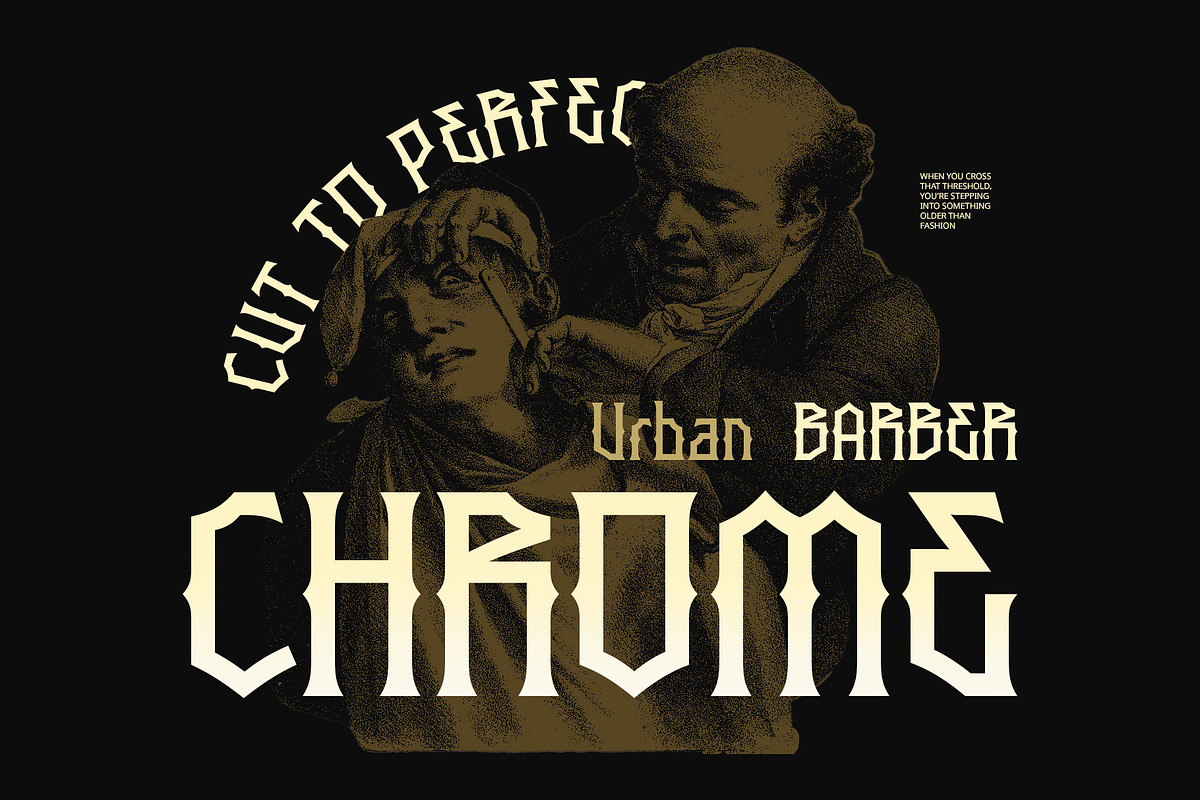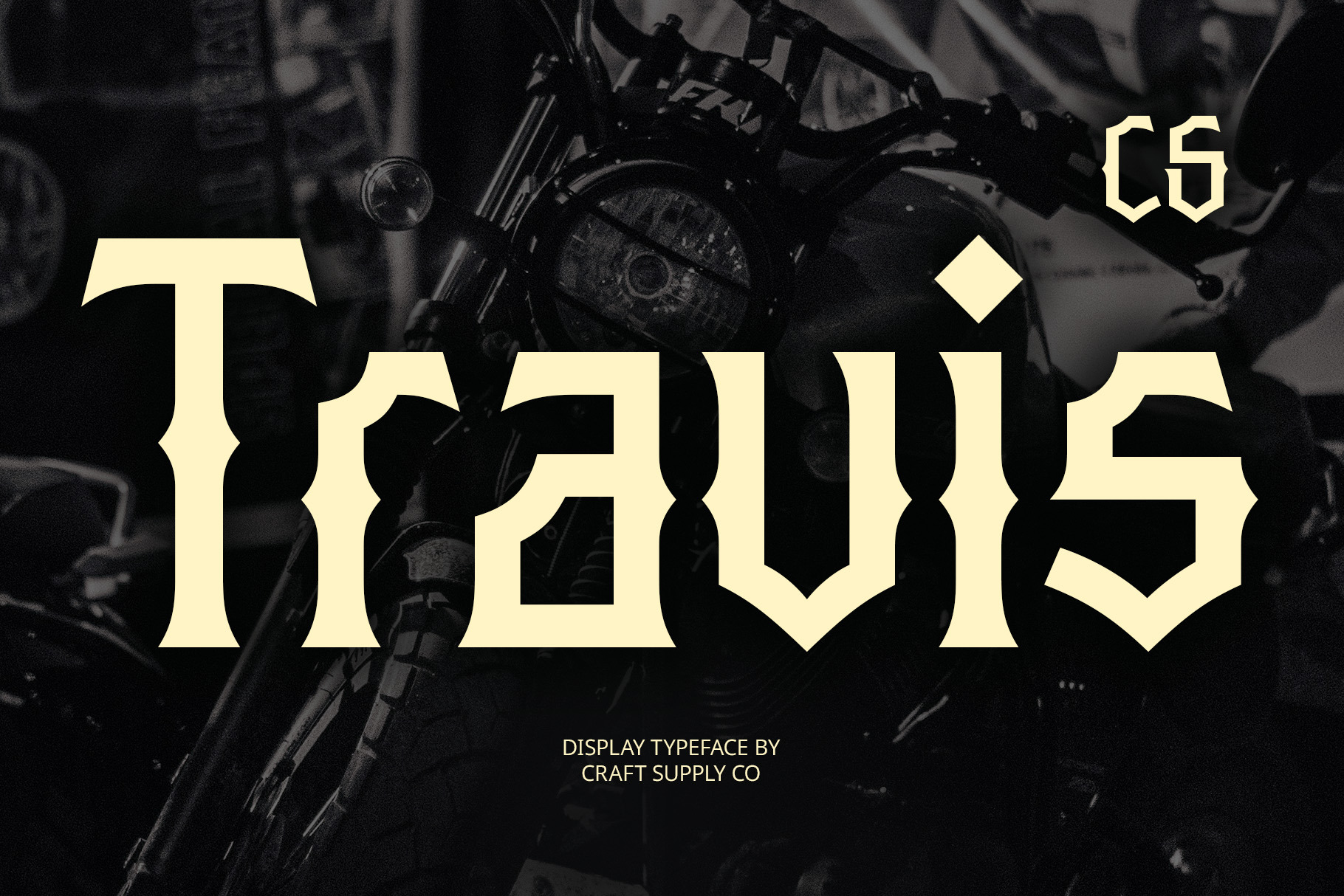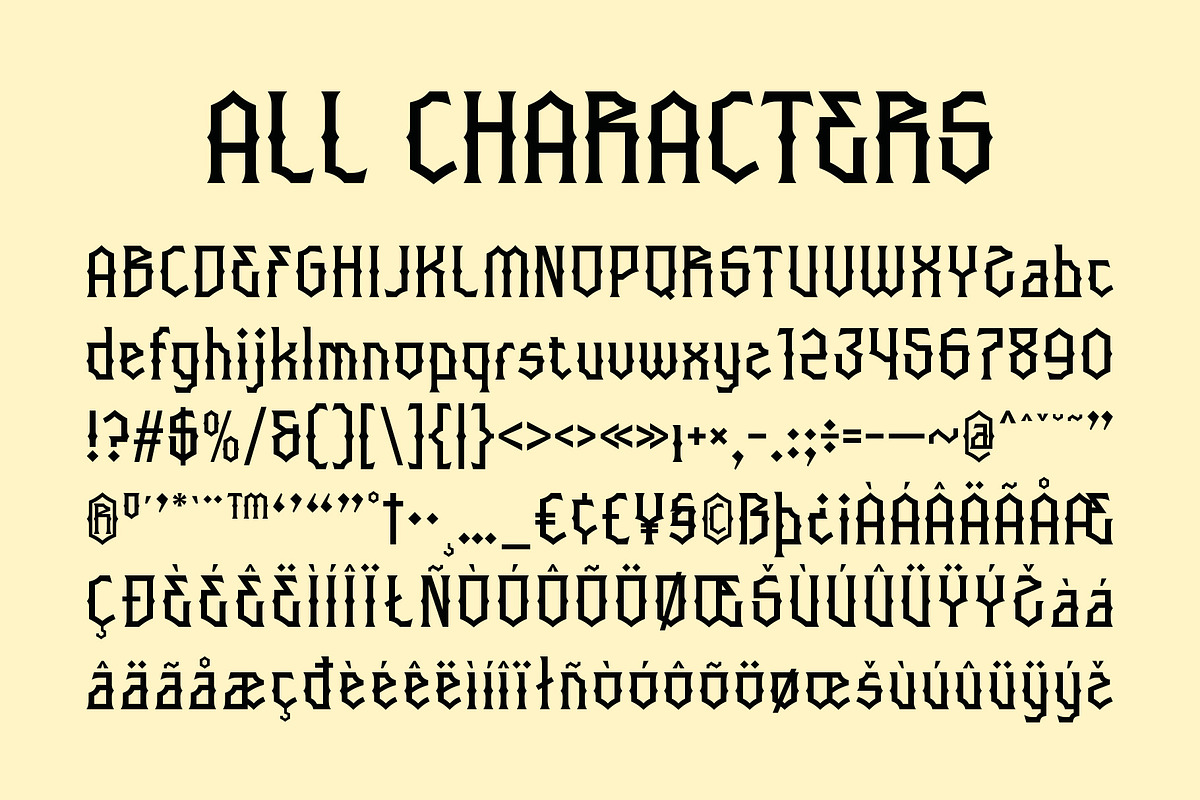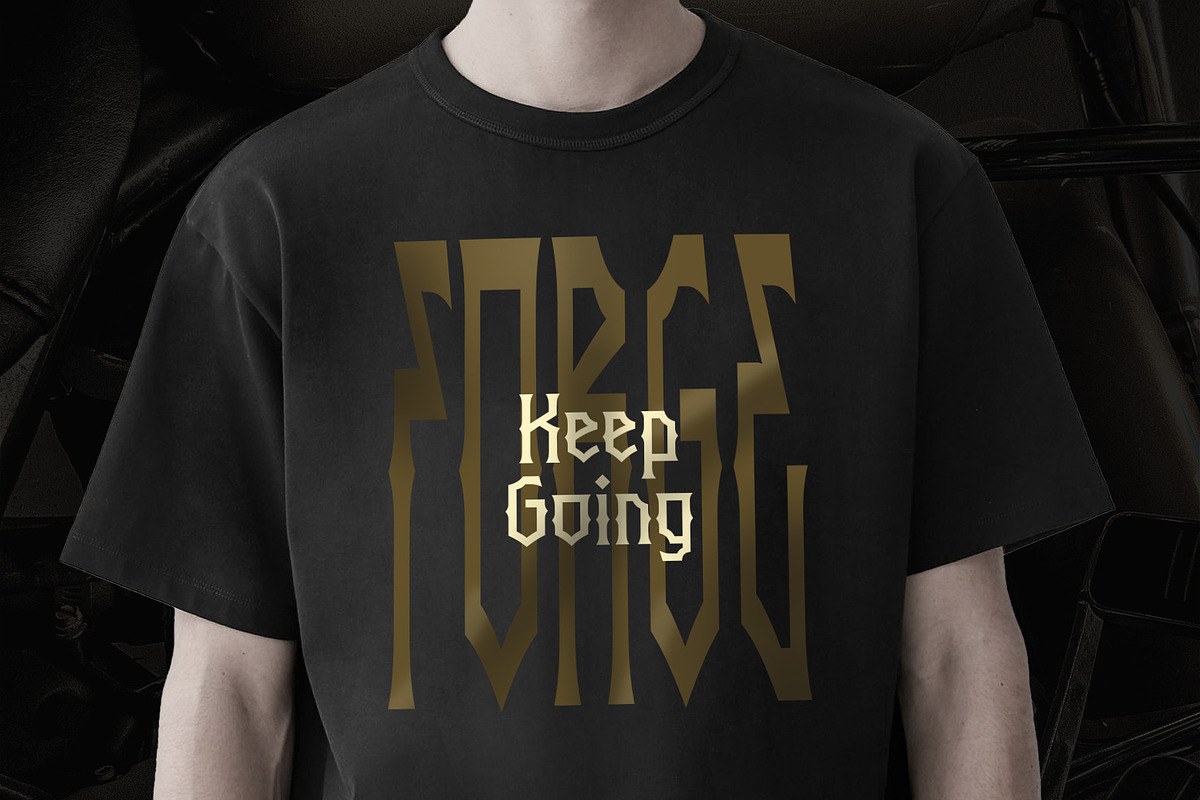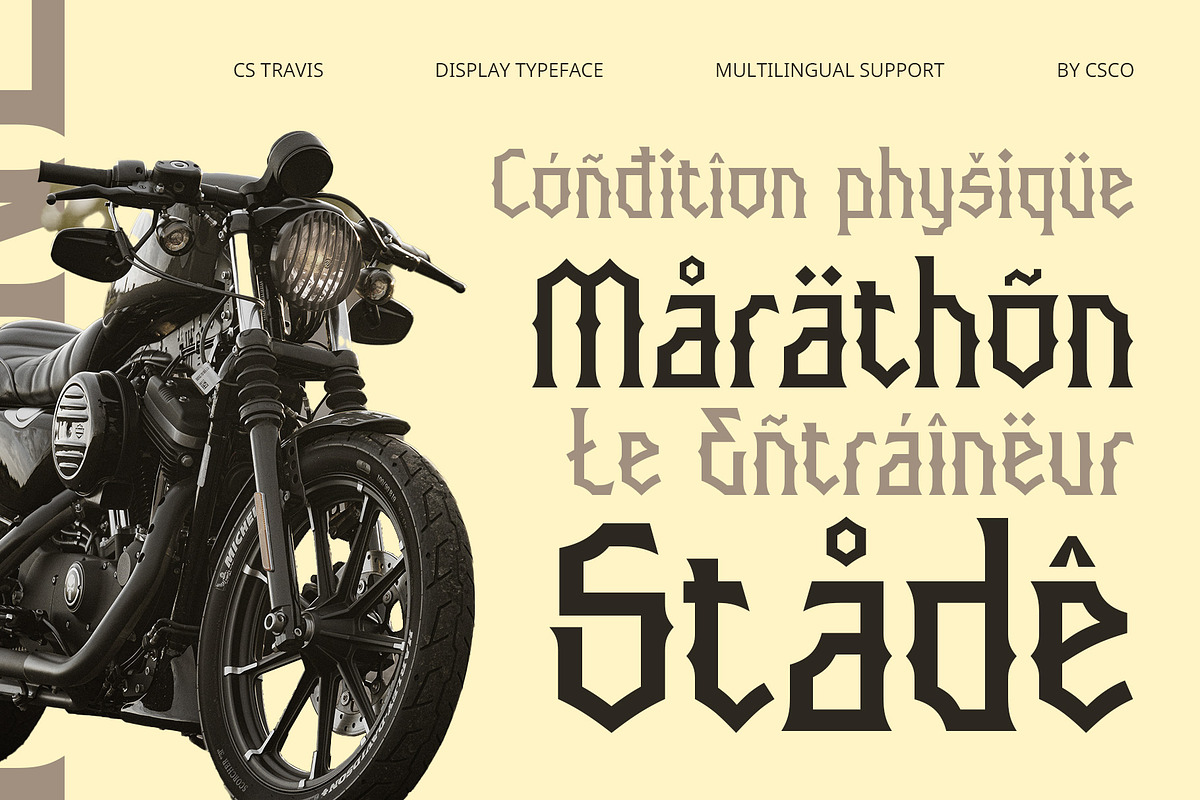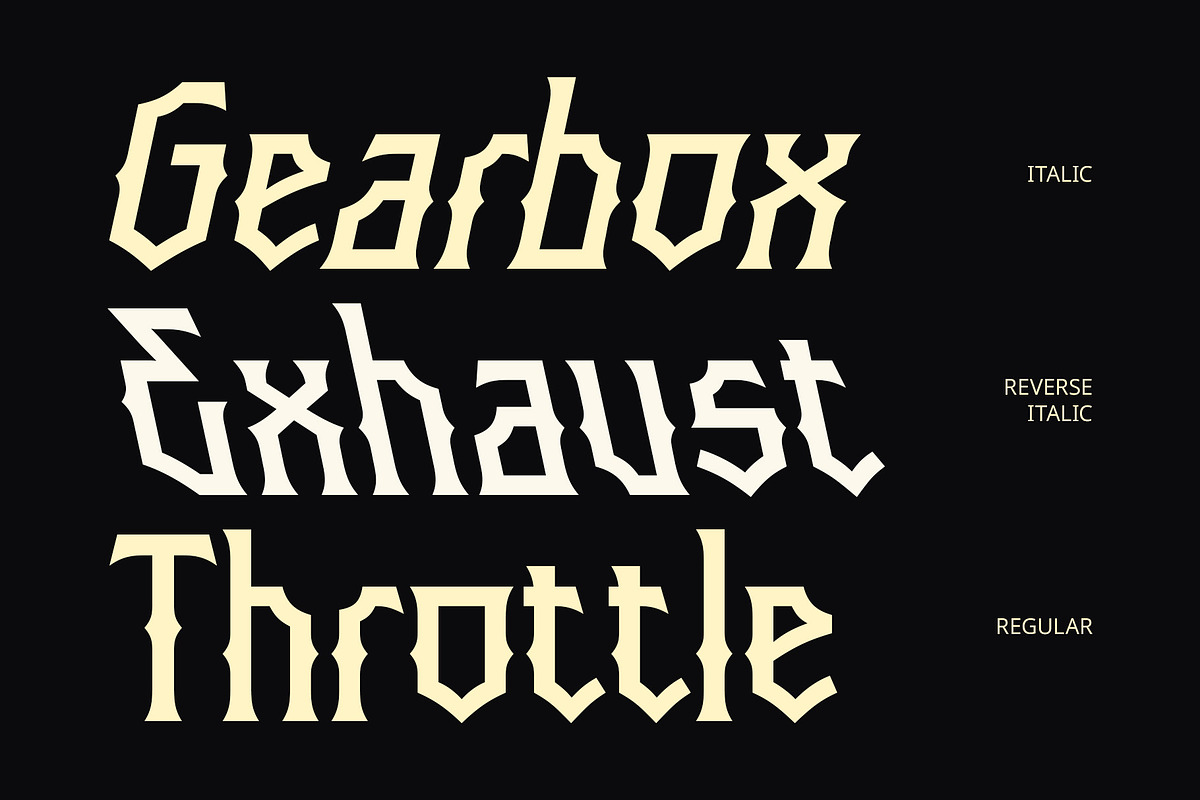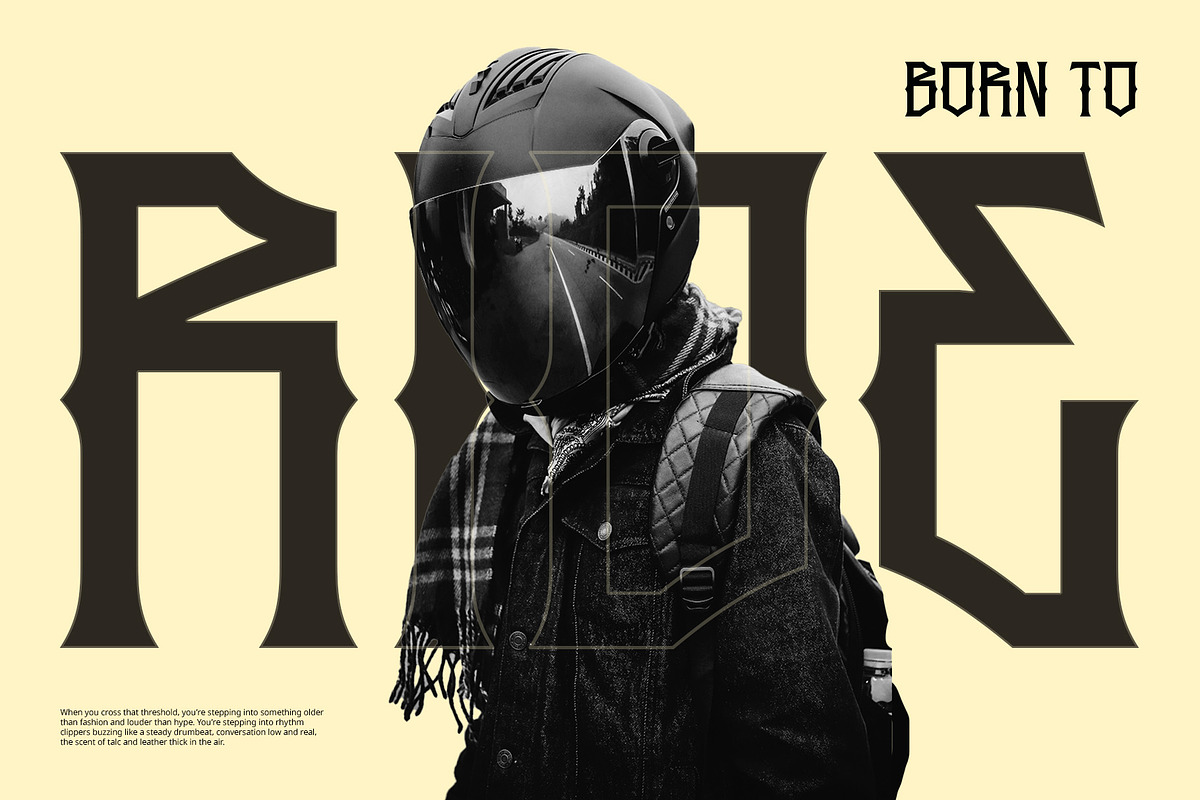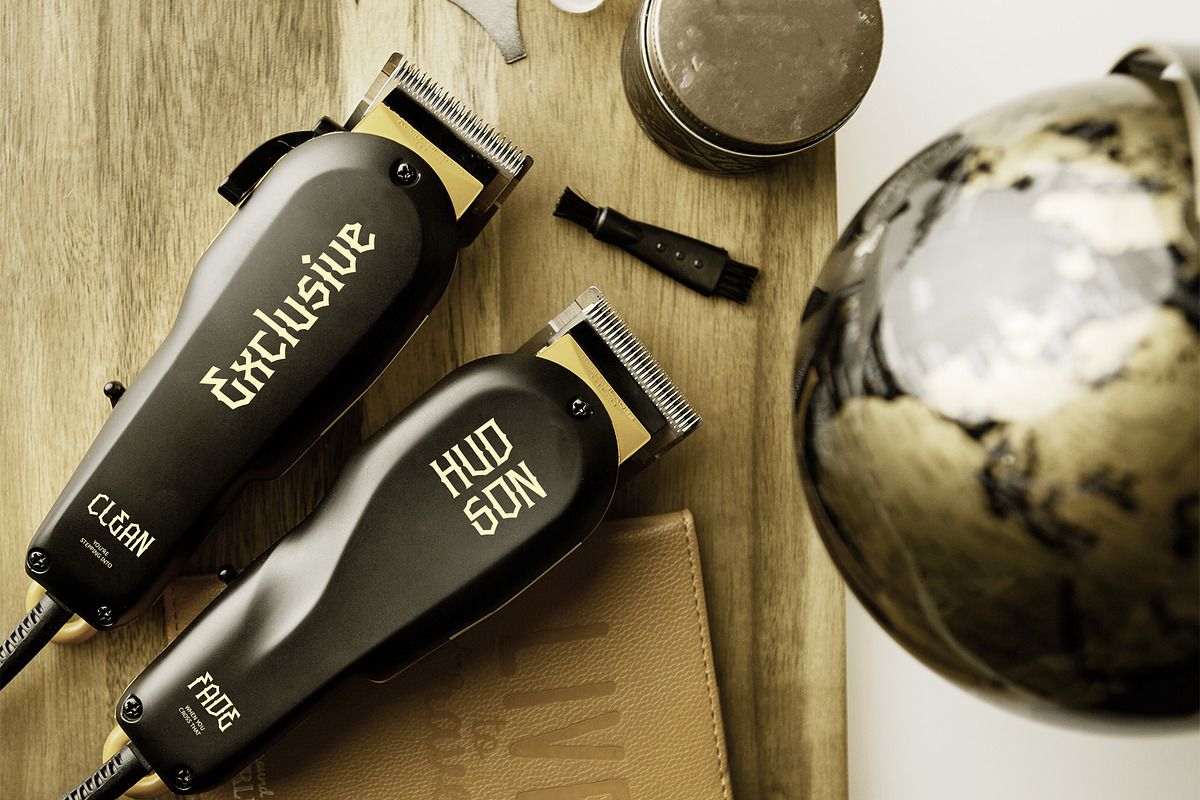
CS Travis – Decorative Font
CS Travis – Decorative Font: Gothic-Inspired with a Funky, Contemporary Twist
Bold and Character-Filled Design CS Travis – Decorative Font is a modern display serif that uniquely merges boldness with artistic flair. Drawing influences from Gothic Greek, it features sharp, elegant serifs combined with eccentric, funky details that give it a distinct personality. Its thick, powerful strokes ensure it grabs attention, while the vintage elements add an extra layer of charm and uniqueness.
A Blend of Classic and Contemporary This font creates a perfect balance between classic Gothic influences and modern decorative touches. The intricate serifs and artistic flourishes offer an old-world charm, while the funky details give it a fresh, contemporary vibe. This blend makes it ideal for projects that aim to stand out with a blend of timeless elegance and modern creativity.
Versatile for Creative and Energetic Designs Perfect for projects that need to make a bold statement, CS Travis excels in creative branding, music posters, and festival designs. It’s an excellent choice for any project that aims to highlight a unique, energetic identity.
Artistic and Vintage Vibe The combination of Gothic and funky elements in CS Travis provides a distinct look that feels both vintage and new. It’s the ideal font for designs looking to evoke a sense of history while maintaining a modern edge.